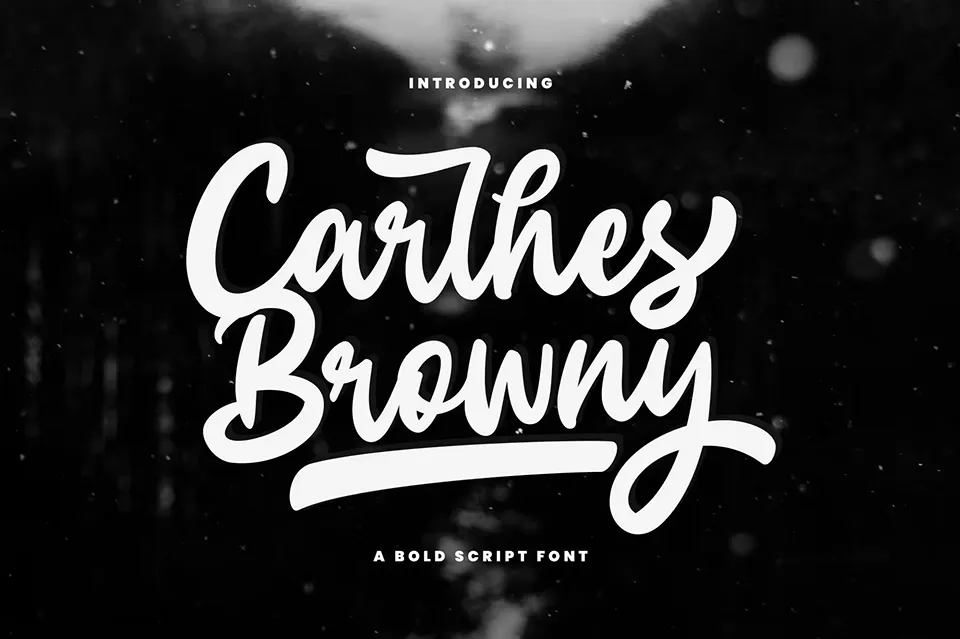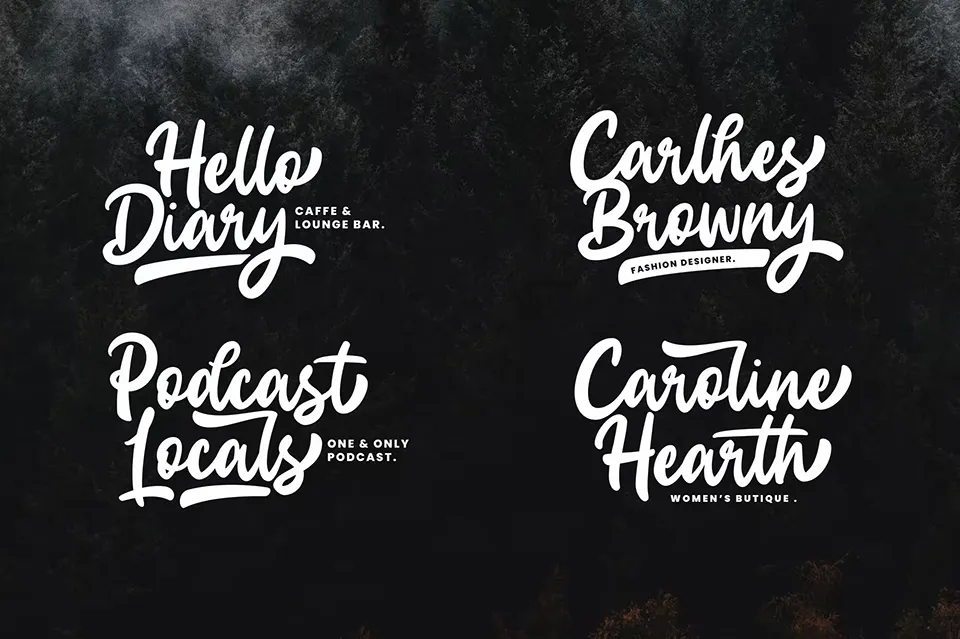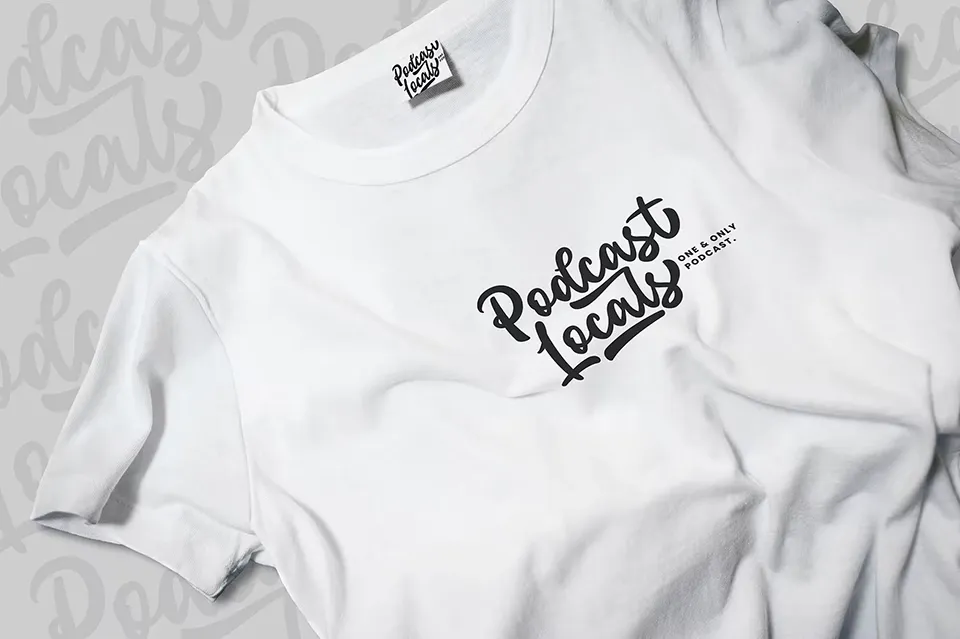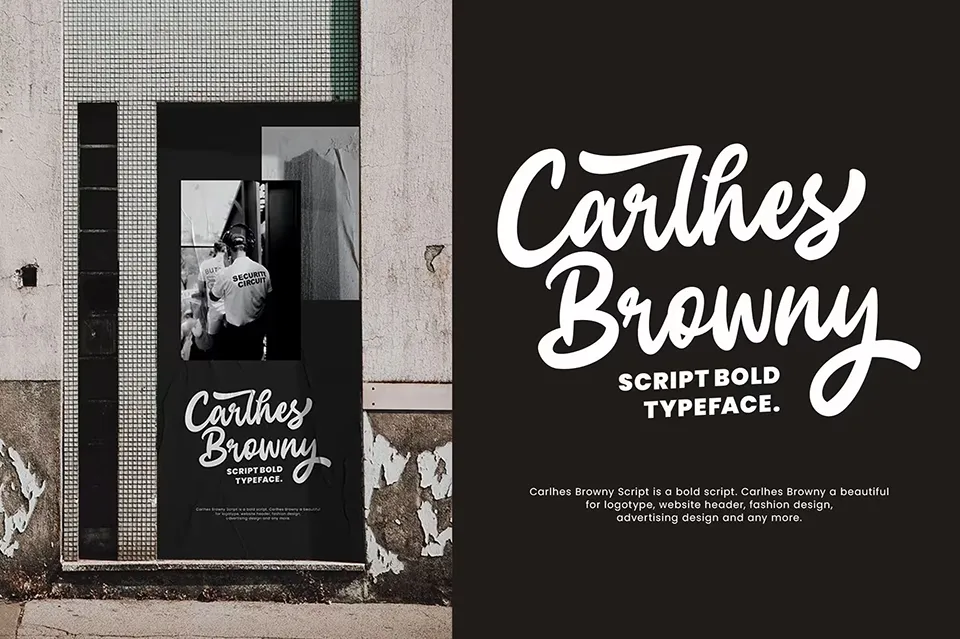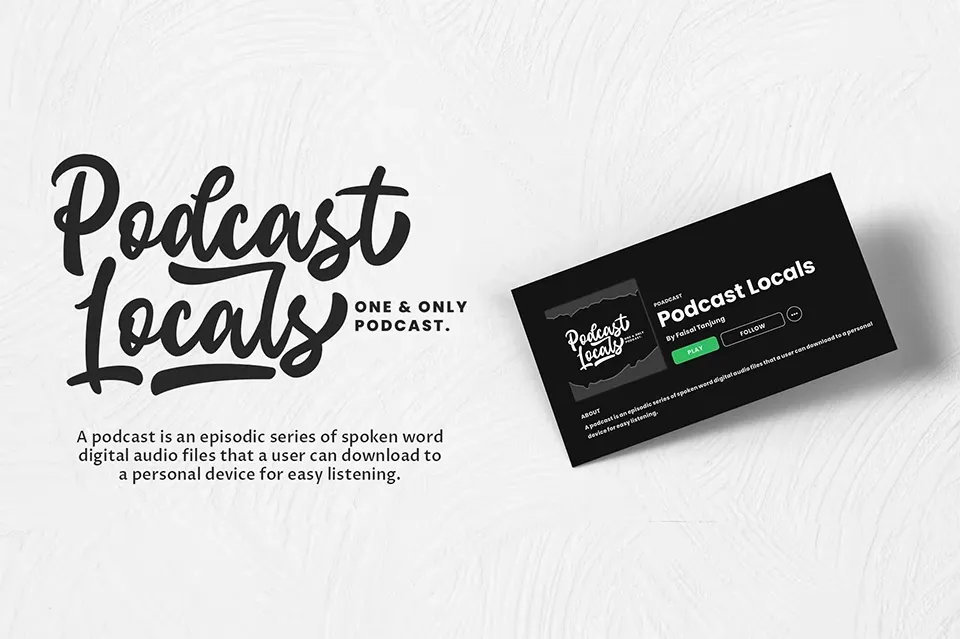
Carlhes Browny Font
Carlhes Browny Font is a modern bold script typeface with a stunning style, perfect for logotypes, website headers, fashion design, advertising, and more. It features a full set of upper and lowercase letters, a wide range of punctuation, numerals, and multilingual support. The font’s unique curves and organic flourishes add personality and warmth, making it ideal for projects that need a touch of elegance and character.